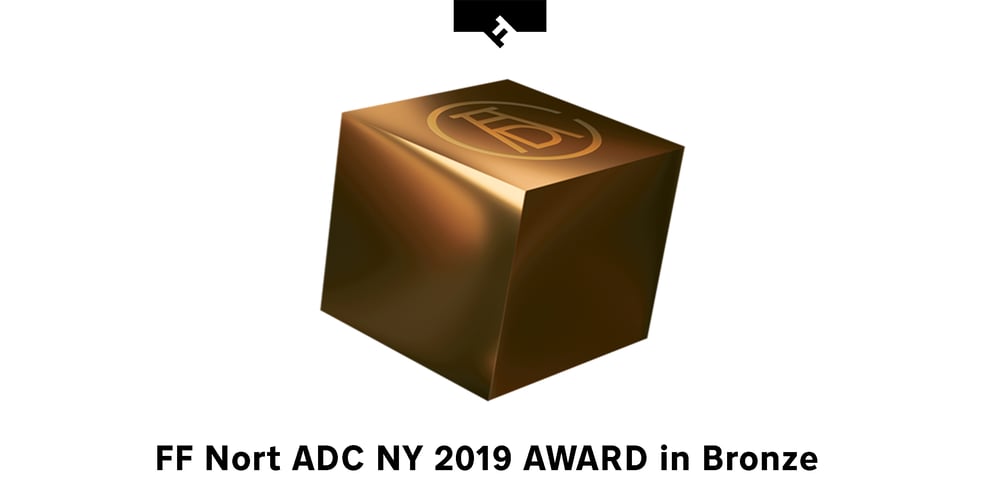
FF Nort
FF Nort font
FF Nort Font Family was designed by Jörg Hemker and published by FontFont. FF Nort contains 16 styles and family package options. FF Nort™ has all the design attributes that make for an exceptionally versatile print and web typeface – and it benefits from a distinct personality. Equally at home in long-form text copy or billboard size headlines, the family knows few boundaries. There is also a handcrafted neo-grotesque quality to the design, giving FF Nort a friendly mien and separating it from other industrial strength sans serif typefaces. Terminals are clipped at 90° angles to the stroke and counters are slightly condensed, saving space with no loss of legibility. The light weights have a subtle elegance, while the bold are commanding. All eight weights, and their italic companions, enjoy a large character set, with support for most Central and several Eastern European languages – including Cyrillic and Greek. Drawn by Jörg Hemker, the inspiration for FF Nort came from Transport, the typeface designed for Britain’s highway signage. Transport is formal, intellectual, and a model for modern street signage, but it was not intended for small sizes or continuous reading. Hemker took the basic structure of Transport and rebuilt it into a design that’s perfect for a wide range of contemporary hardcopy and digital imaging projects.